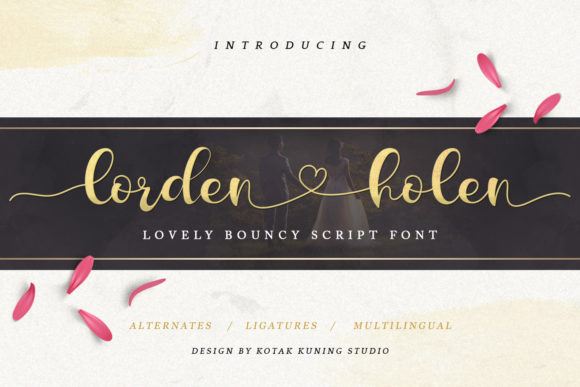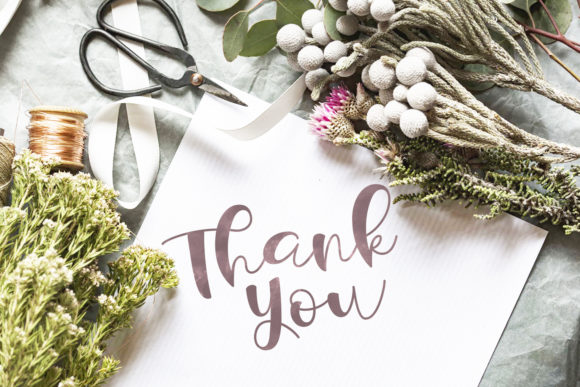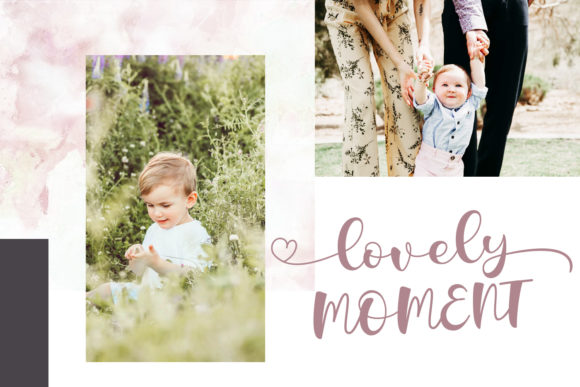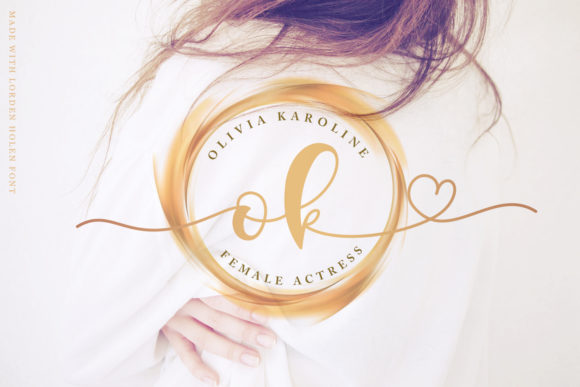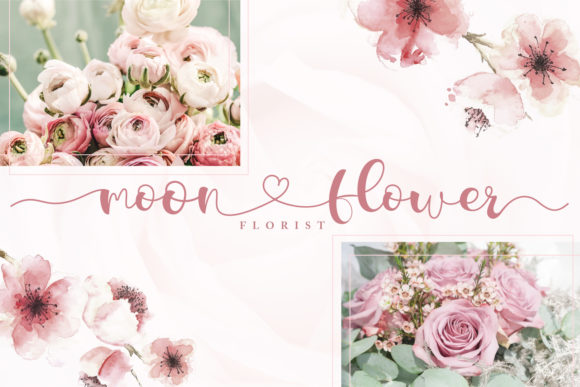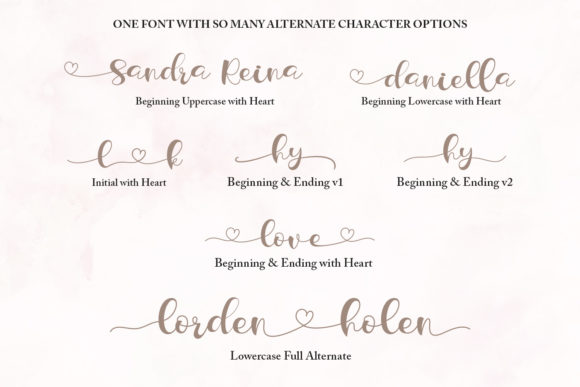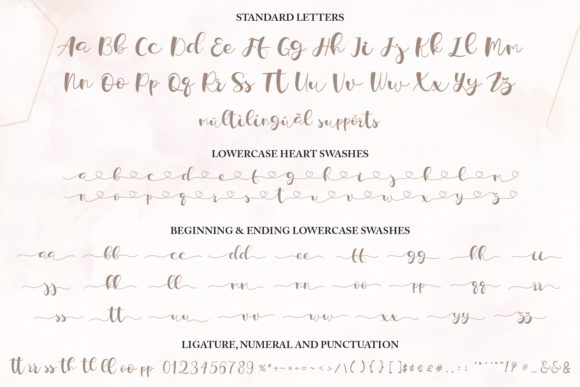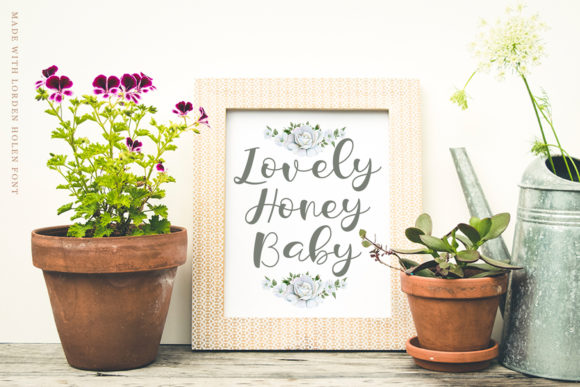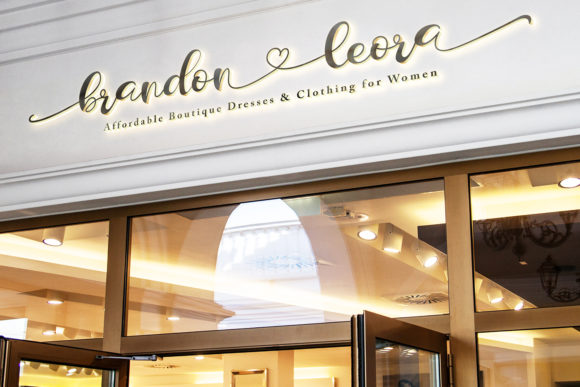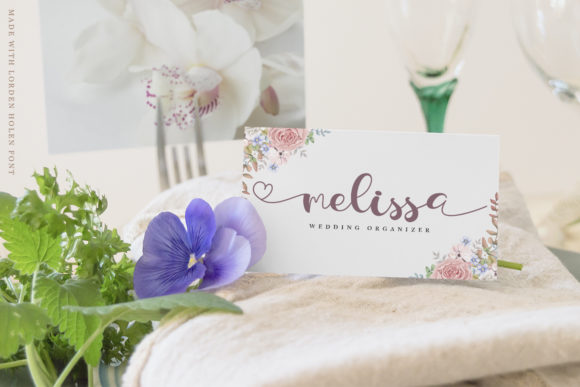
Lorden Holen Font
About Lorden Holen Font
Lorden Holen is a beautiful handwritten font with amazing swashes. It will add an authentic twist to any design project!